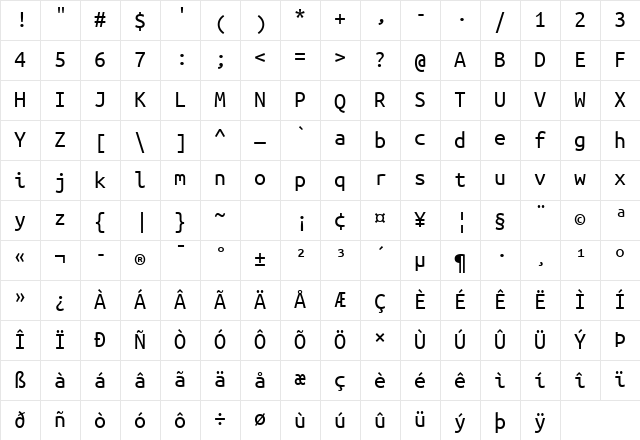
Complete UbuntuMono Nerd Font Mono Regular glyph index. Displaying only characters natively supported by UbuntuMono Nerd Font Mono Regular font.
UbuntuMono Nerd Font Mono uses fixed-width spacing throughout, giving it the structured, systematic character associated with coding environments and technical documentation.
Pro Tip: Use UbuntuMono Nerd Font Mono with slightly increased line-height for extended reading - fixed-width spacing can feel dense in longer passages without extra breathing room.